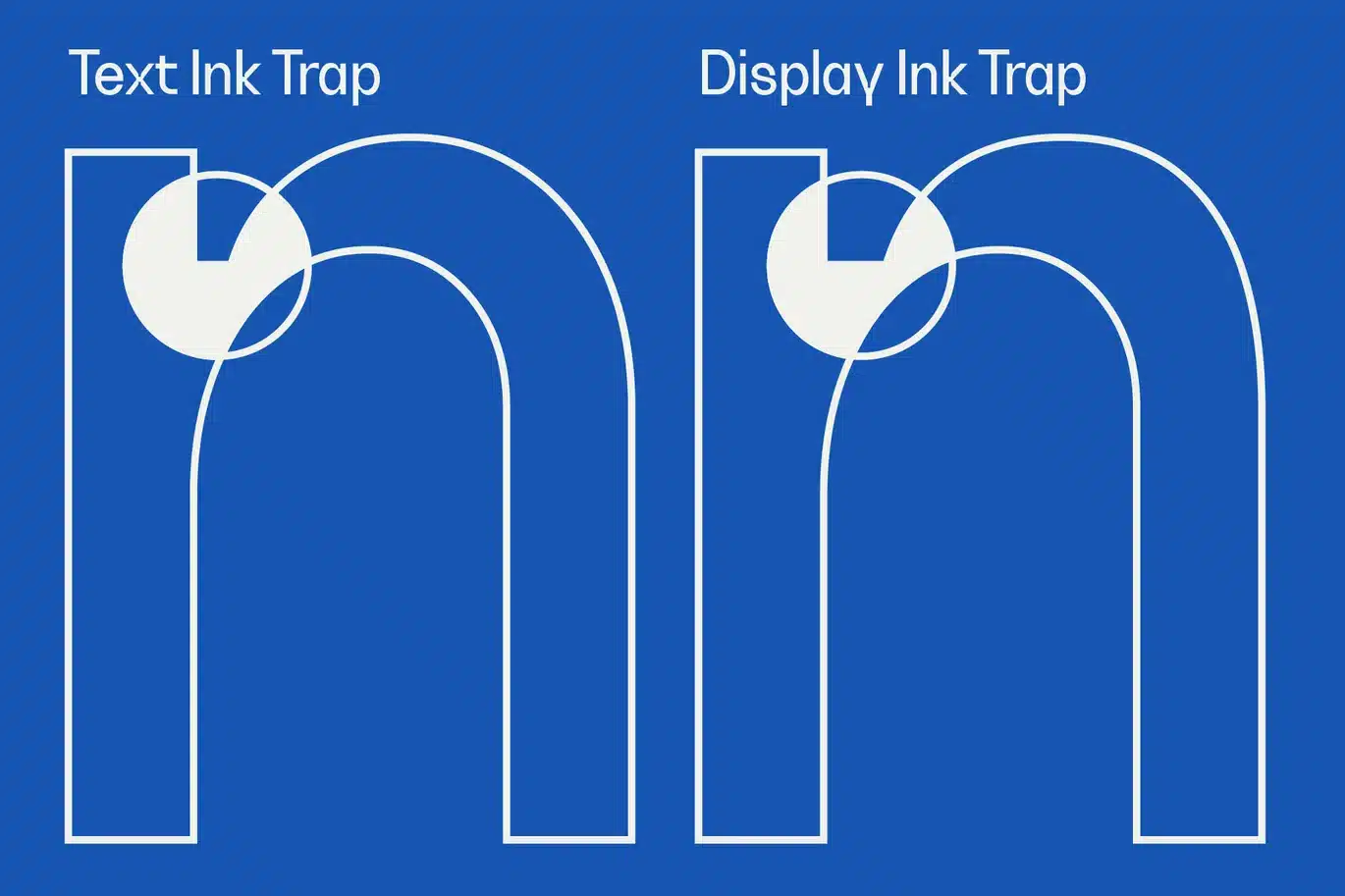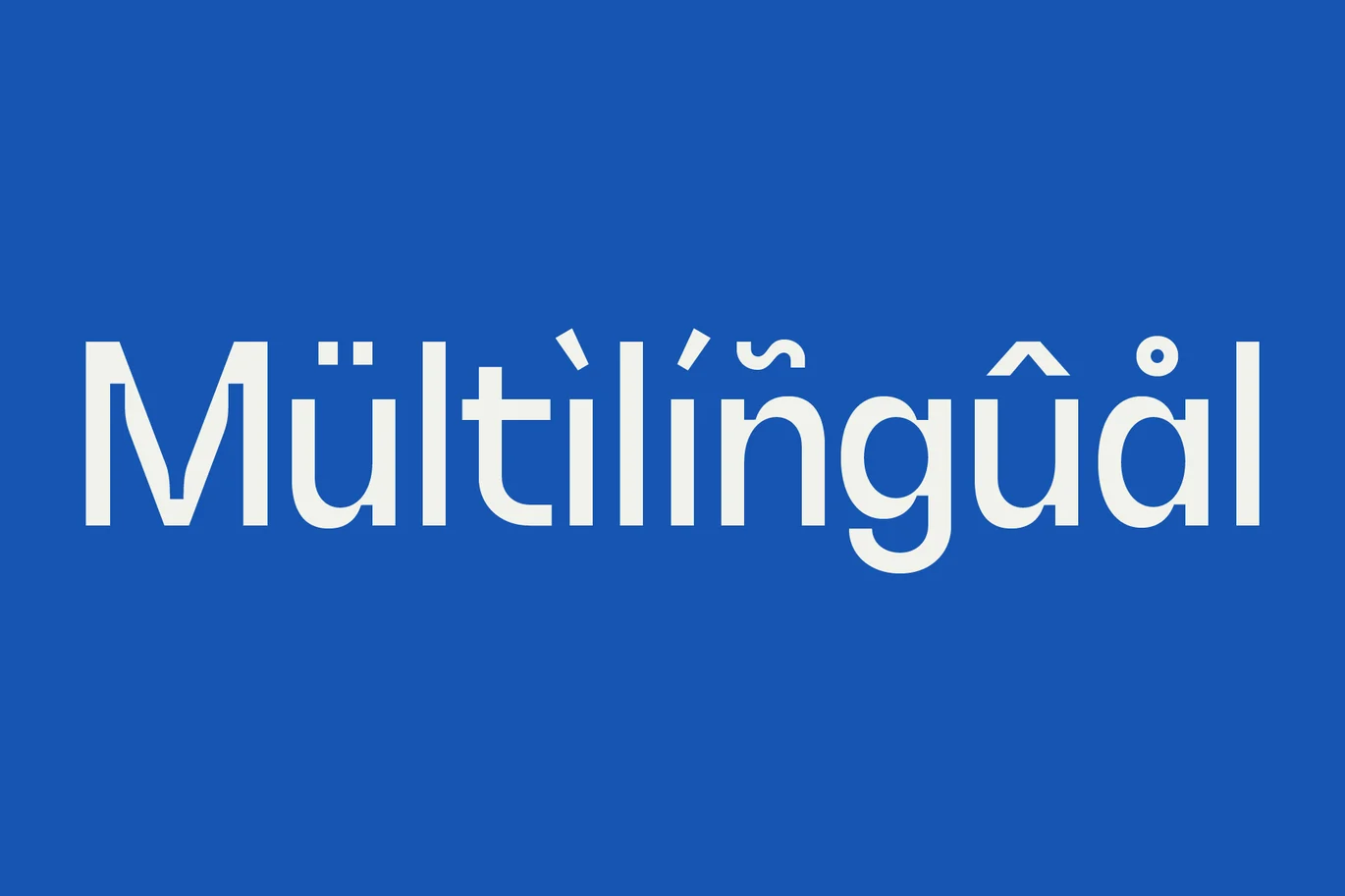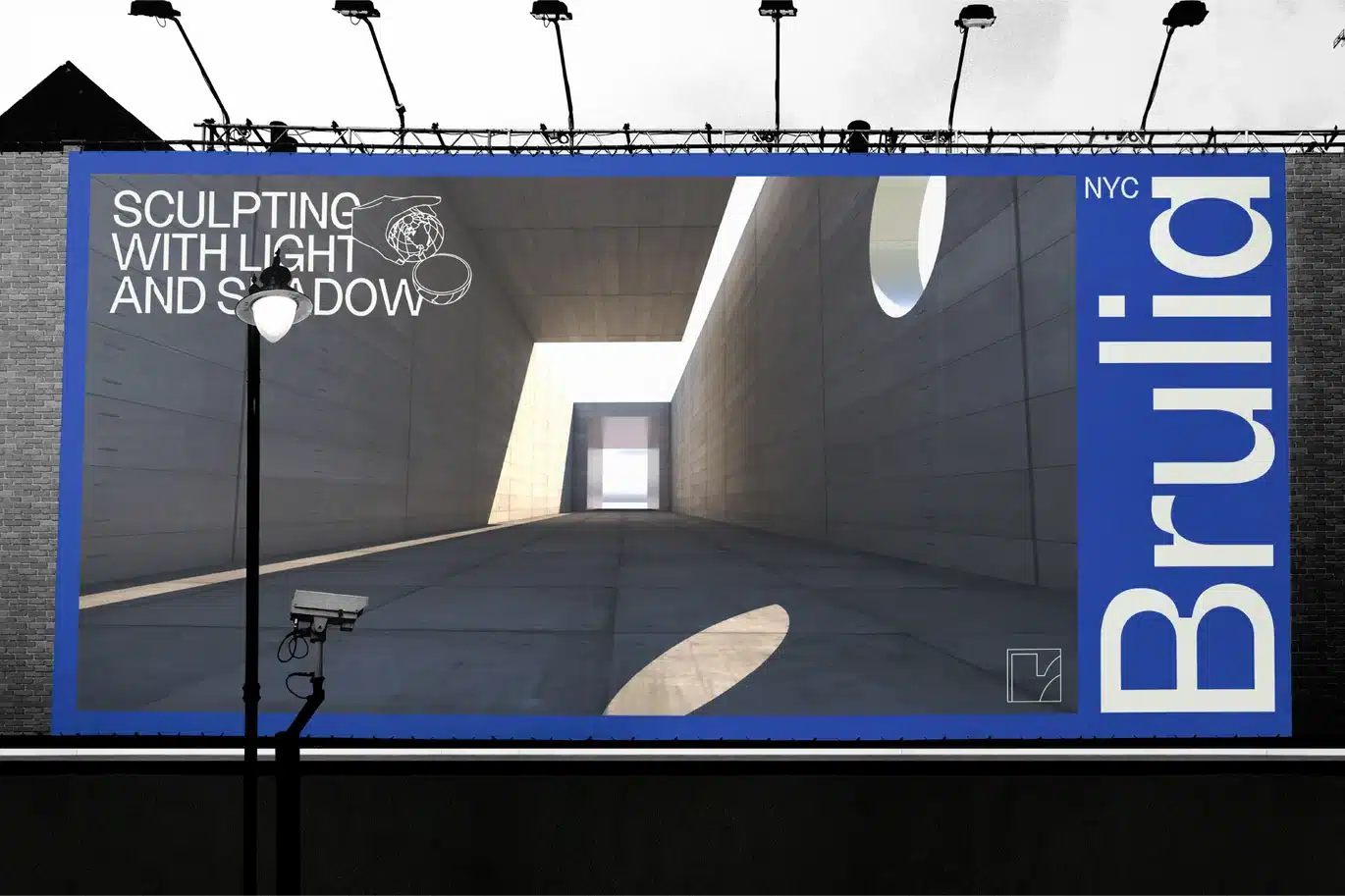
Brulia modern Ink trap Logo Sans Serif Font
Brulia is a modern sans serif Grotesk Font Duo with Pronounced Variable Ink Traps. This Sans Serif is inspired by brutalist architecture. It is perfect for adding some sophistication to a minimalist geometric type-centered design. It is perfect for web, print, Instagram, posters, branding, or anything you are looking to elevate with a clean but strong personality. Whether it is body copy, big blocks of text, or headlines this font is perfect for any type size.